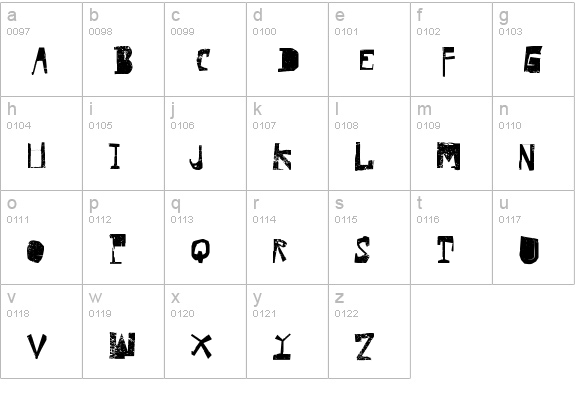
HVD Rowdy font is a dynamic and energetic typeface that exudes a sense of playfulness and character. With its bold and distinctive design, this font is perfect for adding a touch of whimsy to your projects. HVD Rowdy is a versatile font that works well for various design purposes, from branding to packaging to social media graphics. The best part? HVD Rowdy is available for free download at FontsMarket.com. Simply visit the website and start incorporating this unique font into your creative endeavors today. Don't miss out on the opportunity to enhance your designs with the charm and personality of HVD Rowdy font.